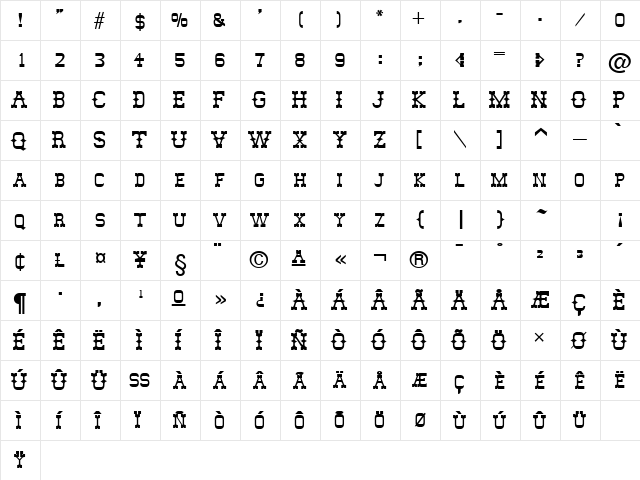
Mesquito SF Bold
Design Context for Mesquito SF Typeface
Mesquito SF takes a measured approach to typography — its balanced proportions and neutral character make it a reliable workhorse for both digital and print work. Its bold stroke weight gives it real presence on the page.